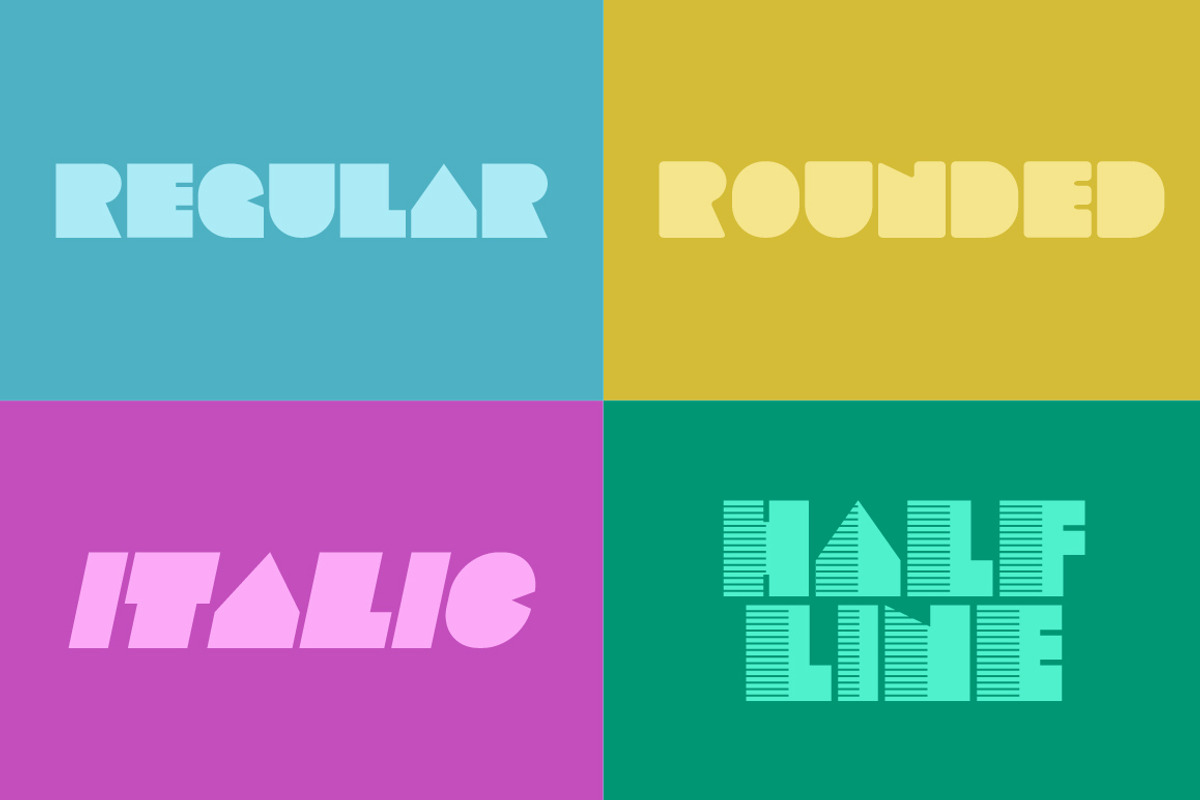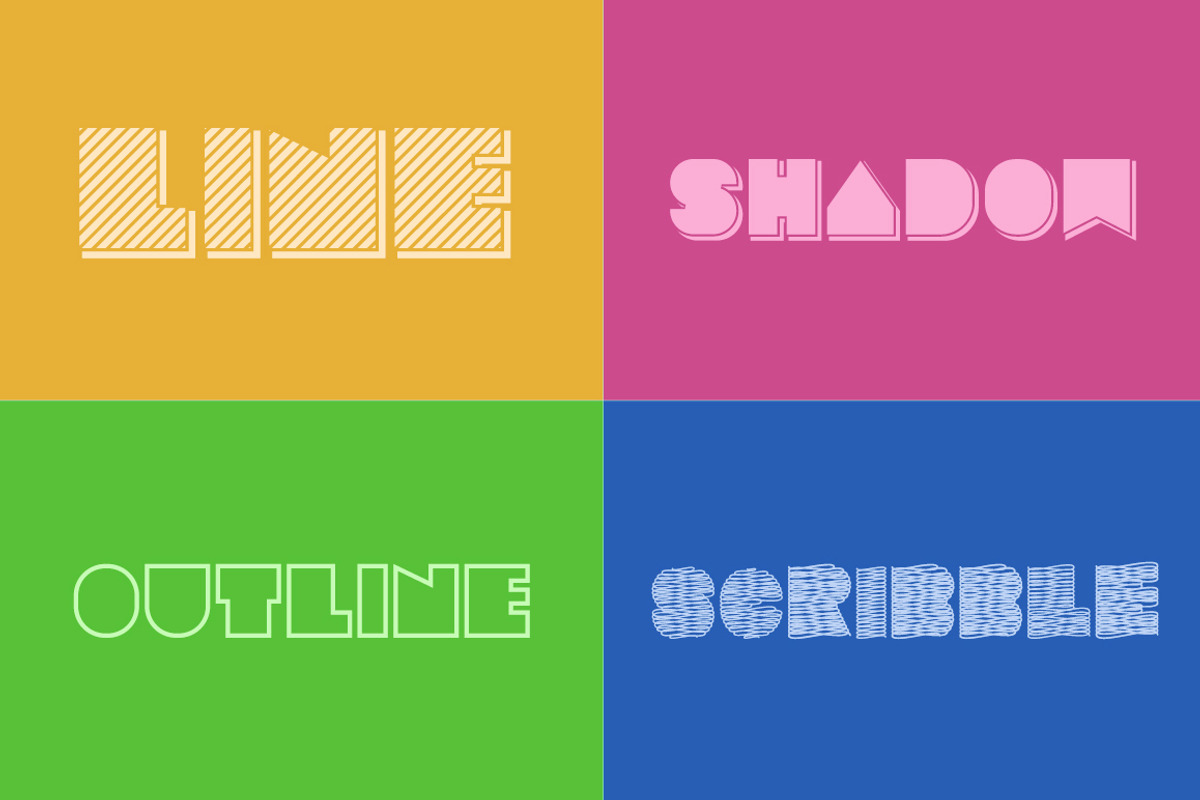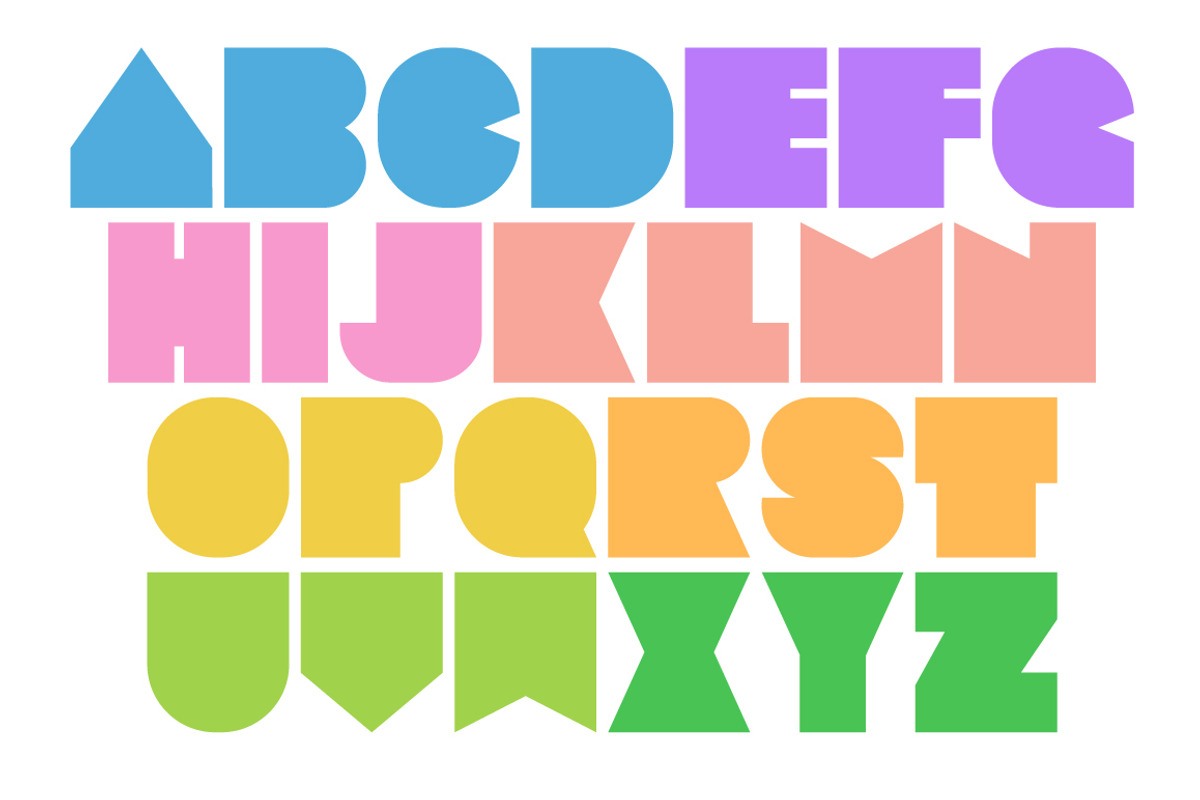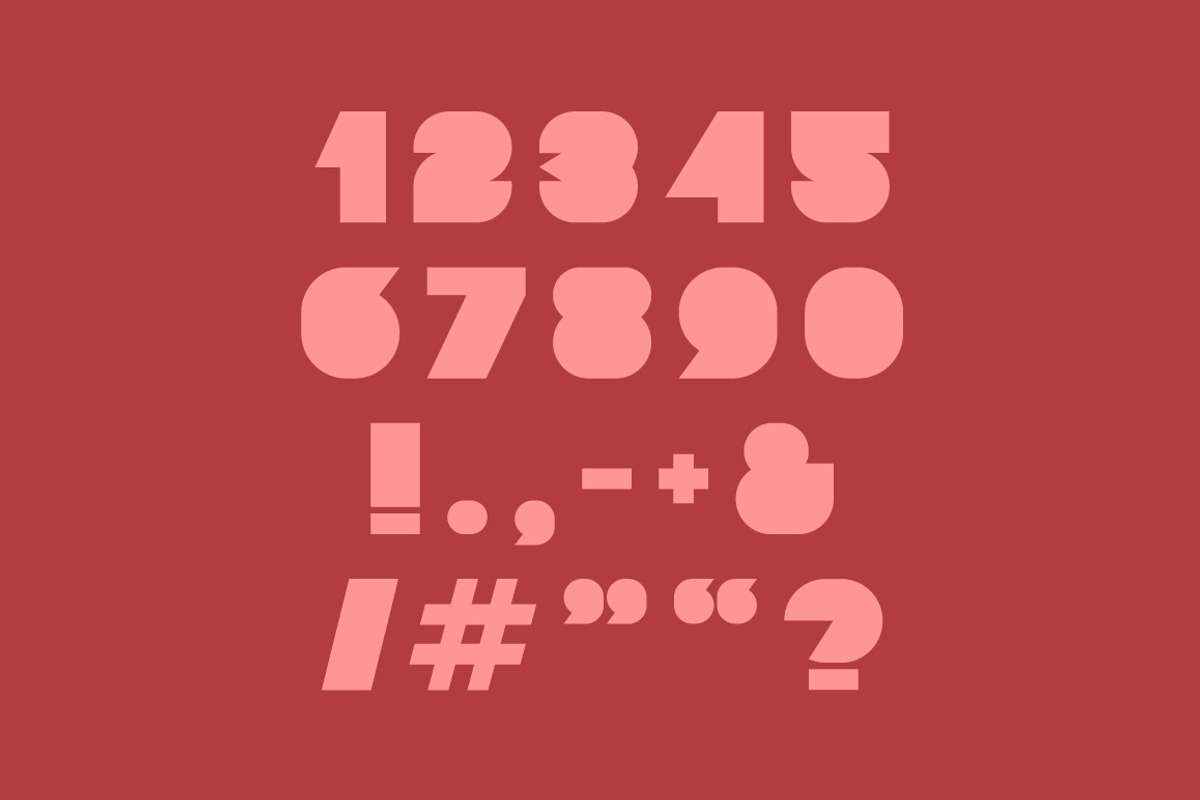
Basenglah Font Pack
Basenglah Font Pack by Arterfak Project is a font selected for branding, posters, packaging, typography.
- Basenglah Regular
- Basenglah-Outline
- Basenglah-Line
- Basenglah-Italic
- Basenglah-Half-Lines
- Basenglah-Scribble
- Basenglah-Shadow
Why Basenglah Font Pack is worth a look
Basenglah Font Pack by Arterfak Project fits naturally into Branding, posters, packaging, typography.